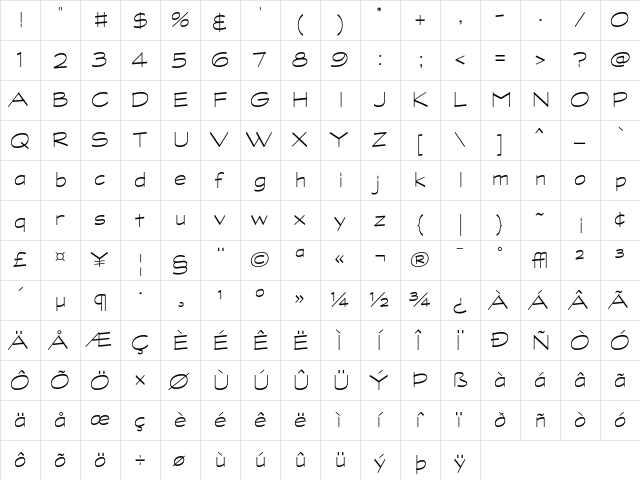
Graphite Light
Copyright1995, David Siegel and Tom Rickner, designers. Produced by The Font Bureau, Inc.
Design Context for Graphite Typeface
Graphite is a composed and adaptable typeface that performs quietly and consistently across a wide range of design contexts. Its slender proportions lend an understated elegance to any composition.